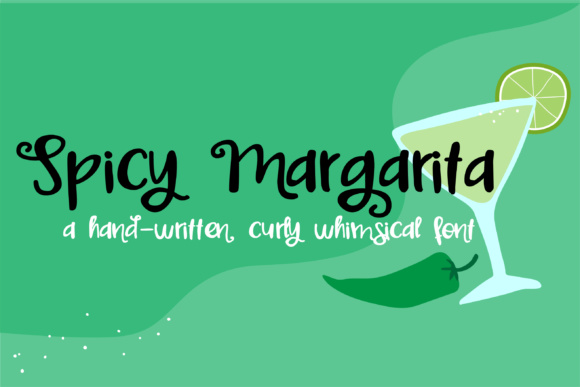
Introducing Spicy Margarita Font: The Playful Handwritten Font That Adds a Dash of Charm to Your Designs!
Journey into the world of captivating typography with Spicy Margarita Font, a handwritten creation by Illustration Ink that exudes whimsy and elegance. This script font oozes personality, adding a touch of playfulness and charm to every project it graces.
Picture this: your designs bursting with life, each letter dancing harmoniously, captivating the eyes of your audience. Spicy Margarita's curly strokes and textured finish create a unique visual appeal that sets your work apart from the ordinary.
Whether you're crafting heartfelt invitations, designing playful social media graphics, or adding a touch of whimsy to your branding, Spicy Margarita Font is your perfect companion. Its versatility knows no bounds, adapting seamlessly to a myriad of design styles.
Embrace the spontaneous nature of Spicy Margarita and let your creativity run wild. This font is not just a collection of letters; it's an expression of your individuality, a reflection of your unique style.
Don't settle for mundane fonts that blend into the background. Choose Spicy Margarita and let your designs shine with personality. Experience the joy of typography and transform your projects into captivating visual masterpieces.